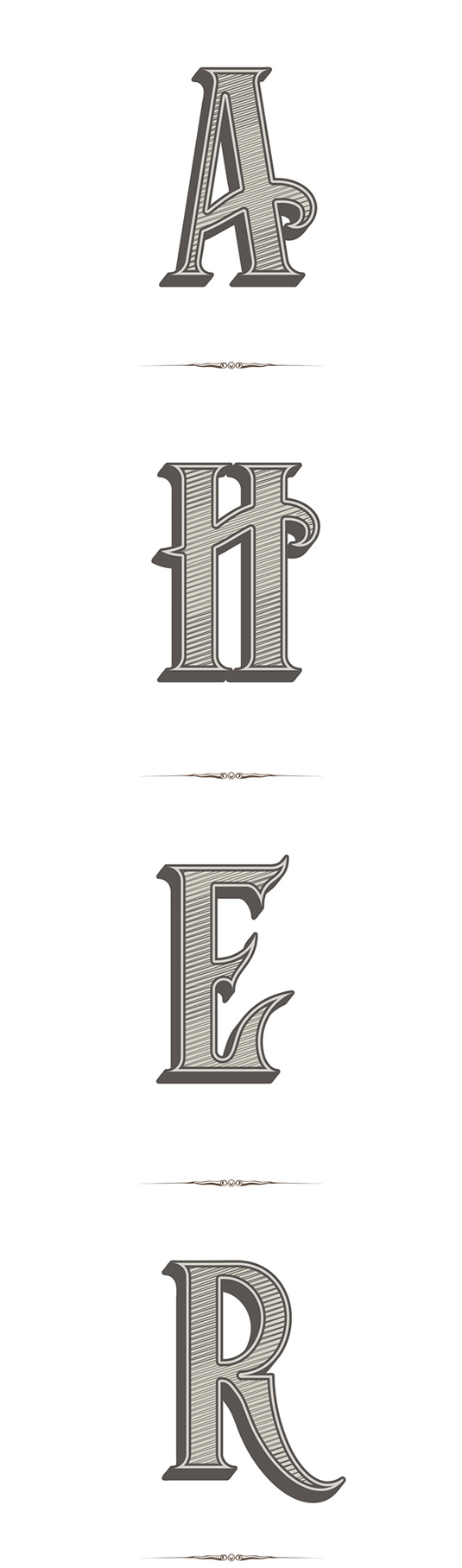
Font of the day: Hogshead
Hogshead by Fabio Martins
Design student Fabio Martins created this vintage-style typeface Hogshead as part of a college project. "I learned a little about the typographic universe creating Hogshead," he comments.